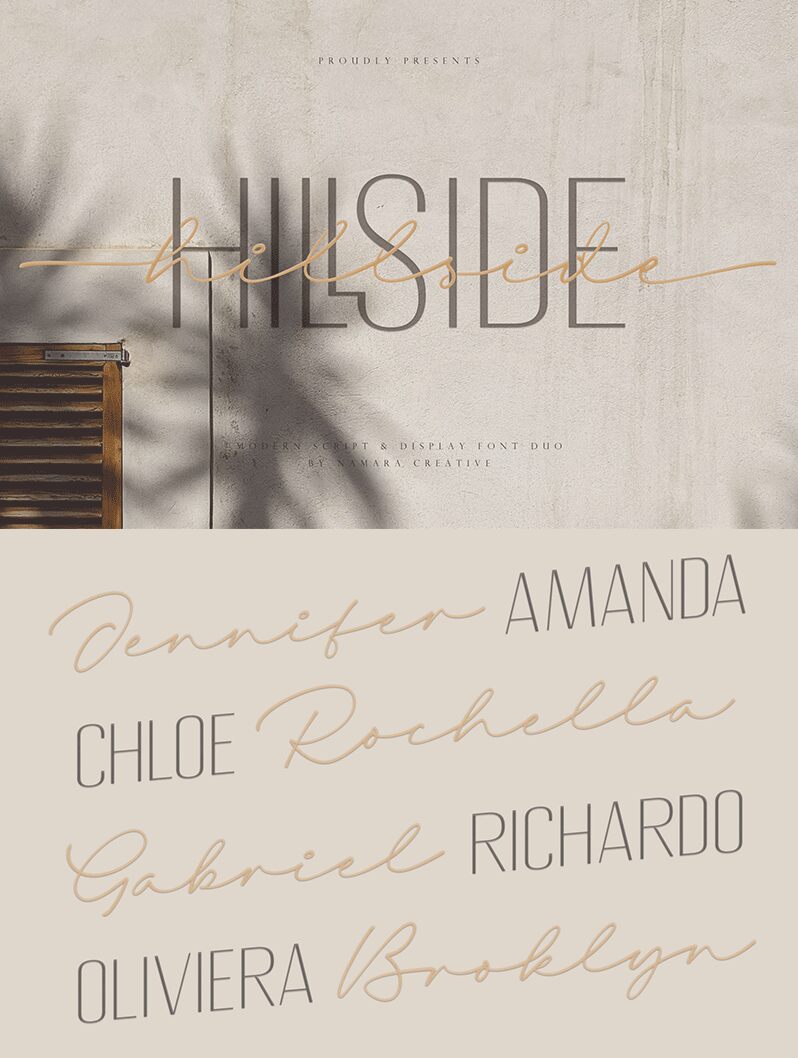
Hillside font family by Namara Creative comes with 2 font styles that jointly tick all points to make our bodies of texts appear presentable and engaging. Its sans serif characters are expressive and an excellent addition to minimalistic and contemporary designs. Elegance is the norm here with a modern and sophisticated presentation that finishes up any projects with a crisp and clean style.
Hillside is a font with a lot to offer, a free font with attention-grabbing, understated characters with straight and curved lines, as well as sharp edges. Discover the stylish strokes and characters of Hillside by using it to put together business presentations, school projects, book covers, magazines, newsletters, signage, web, and UI designs, logos, etc.
Clean and minimalist typeface, ideal for creating a modern aesthetic. This display sans and script combination makes it a perfect choice for personalized and decorative designs.